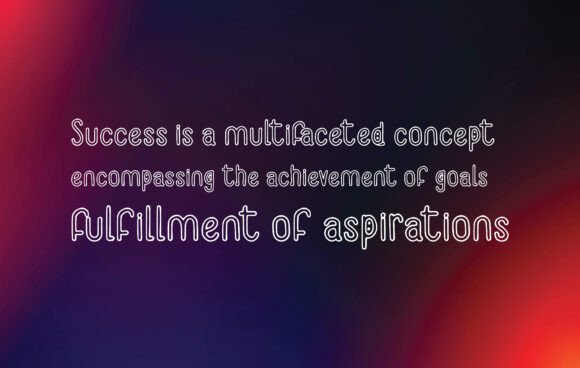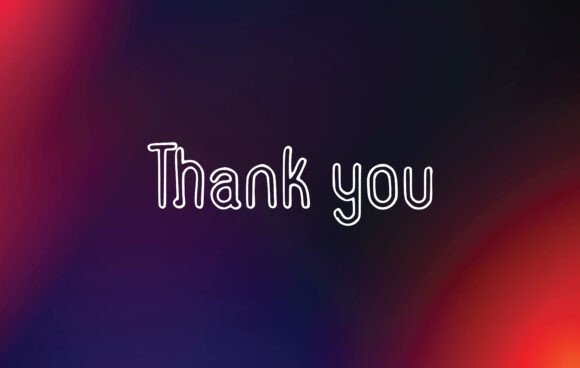
Unlock Your Creativity with Ainsley Font
Have you ever been in the midst of a creative project, pouring your heart and soul into a design, only to feel like something is missing? You’ve got the idea, the vision, but it’s just not coming together quite yet. That’s when the right font can make all the difference.
Enter the Ainsley Font, a beautiful and elegant handwritten font that’s designed to elevate your creative ideas to new heights. Whether you’re working on a logo, branding project, or simply want to add some flair to a quote, Ainsley Font is the perfect choice. With its unique character and charm, it’s no wonder why designers are falling in love with this versatile font.
Ainsley Font Key Features
- Font Family: Ainsley is a modern sans-serif font family designed for digital use.
- Unique Characteristics: Ainsley features a clean, geometric design with subtle rounded edges and a neutral x-height, making it highly legible and versatile for body text and headings.
- Font Weight and Style: Available in 7 weights (Light, Regular, Medium, Bold, Extra Bold, Heavy, and Black) and 3 widths (Normal, Condensed, and Expanded) for added flexibility.
Ainsley Font Review
I’ve had the chance to work with the Ainsley Font, and I must say it’s a beautiful addition to any design project. ✨ The font’s elegant and sophisticated feel makes it perfect for creating a high-end, luxurious atmosphere.
Here are some of the things that work well with Ainsley Font:
- ✨ Unique letterforms: The Ainsley Font features unique letterforms that give it a distinctive, high-end look.
- ✨ Beautiful typography: The font’s typography is well-crafted, making it a joy to read and use.
- ✨ Wide language support: Ainsley Font supports a wide range of languages, making it a versatile choice for designers.
- ⚠️ Limited expressiveness: While the Ainsley Font is elegant, it can feel a bit staid or formal in certain contexts.
- ⚠️ Not suitable for bold headlines: Due to its elegant nature, Ainsley Font may not be the best choice for bold, attention-grabbing headlines.
Overall, I think the Ainsley Font is a solid choice for designers who want to create a sophisticated, high-end look. With a bit of creative restraint, it can be a beautiful addition to any project.
Getting the Most Out of Ainsley Font
To get the most out of the Ainsley font, consider the following tips:
- Use the font for headings and titles to create visual hierarchy
- Pair the font with other fonts to create a unique and interesting typography combination
- Experiment with different font sizes and colors to create visual interest
The Ainsley font is commonly used for:
- Home decor and furniture design
- Wedding and event
Is Ainsley Font available in different languages?
Ainsley Font is designed to support a wide range of languages, including Latin, Cyrillic, and Greek scripts. The font includes Unicode characters for these languages, making it suitable for use in multilingual designs. However, please note that some languages may require additional font features or support, such as diacritical marks or special characters.